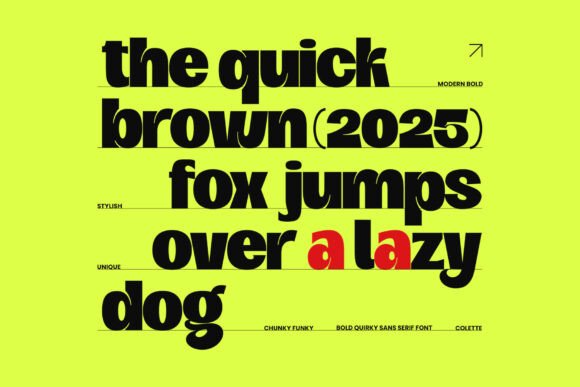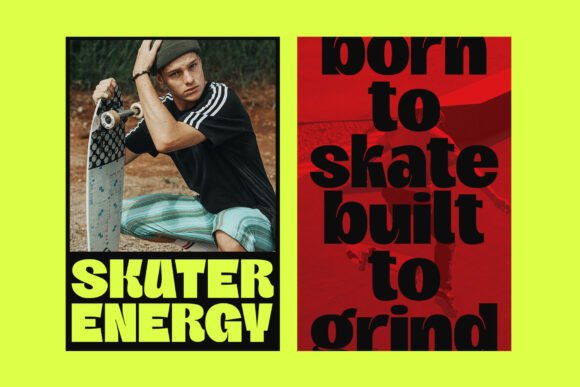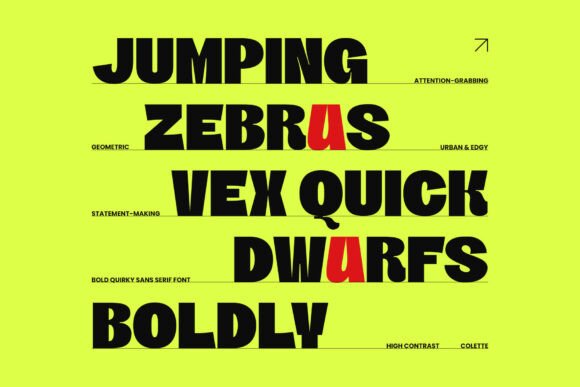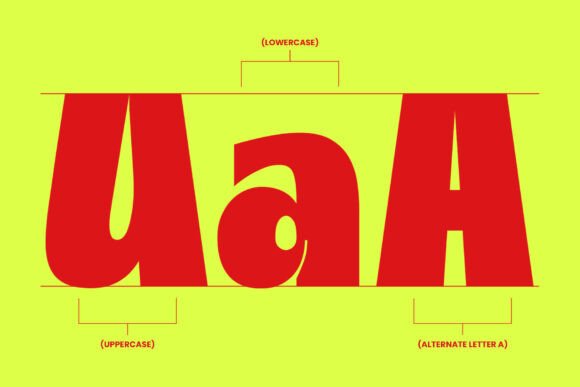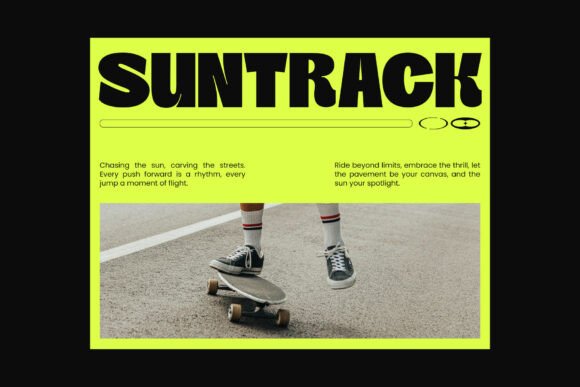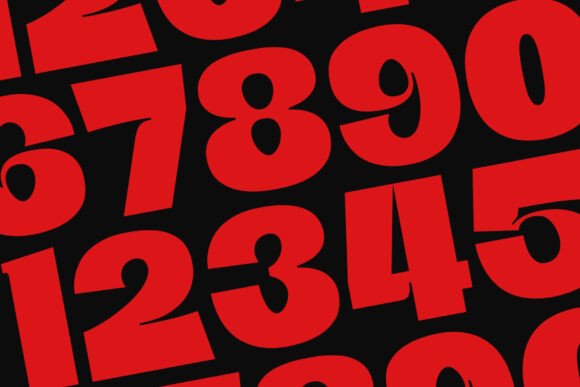
Colette Regular Font: The Bold and Quirky Sans Serif for Modern Designs
In the world of typography, fonts play a crucial role in conveying the tone and personality of a design. For projects that demand attention and want to make a statement, a bold and quirky font is essential. This is where Colette Regular Font comes in – a modern sans serif font that exudes confidence and an unapologetic attitude. In this article, we’ll dive into the features and benefits of Colette, and explore how it can elevate your designs to the next level.
The Unique Characteristics of Colette Regular Font
Colette is a bold and quirky sans serif font that boasts thick curves and unique cuts, setting it apart from more traditional fonts. Its modern edge and edgy vibe make it perfect for projects that require a bold and eye-catching typography. The font’s distinctive features include:
- Thick curves: Colette’s curves are substantial and rounded, giving the font a friendly and approachable feel.
- Unique cuts: The font’s cuts are carefully crafted to create a sense of movement and energy, making it perfect for dynamic designs.
- Modern edge: Colette’s modern edge gives it a sleek and contemporary look that’s perfect for designs that require a fresh and youthful feel.
Ideal Use Cases for Colette Regular Font
Colette is a versatile font that can be used in a variety of design projects, including:
- Posters: Colette’s bold and eye-catching typography makes it perfect for posters that need to grab attention.
- Streetwear: The font’s edgy vibe and modern edge make it a great fit for streetwear designs that require a bold and youthful look.
- Headlines: Colette’s thick curves and unique cuts make it perfect for headlines that need to make a statement.
- Album covers: The font’s quirky and bold personality makes it a great fit for album covers that require a unique and eye-catching typography.
- Branding: Colette can be used for branding projects that require a bold and confident typography, such as logos, packaging, and advertising materials.
Why Choose Colette Regular Font?
So, why choose Colette Regular Font for your design projects? Here are just a few reasons:
- Attention-grabbing: Colette’s bold and quirky typography is designed to grab attention and make a statement.
- Versatile: The font can be used in a variety of design projects, from posters and streetwear to headlines and branding.
- Modern edge: Colette’s modern edge gives it a sleek and contemporary look that’s perfect for designs that require a fresh and youthful feel.
- Easy to read: Despite its bold and quirky personality, Colette is easy to read and can be used for both headings and body text.
Tips for Using Colette Regular Font
To get the most out of Colette Regular Font, here are a few tips:
- Use it boldly: Colette is a bold font, so don’t be afraid to use it boldly and make a statement.
- Experiment with colors: The font’s quirky personality lends itself well to bright and bold colors, so don’t be afraid to experiment.
- Pair it with contrasting fonts: Colette’s bold personality can be paired with contrasting fonts to create a visually appealing design.
In conclusion, Colette Regular Font is a bold and quirky sans serif font that’s perfect for projects that demand attention and want to make a statement. Its thick curves and unique cuts give it a modern edge and an unapologetic attitude, making it perfect for posters, streetwear, headlines, album covers, and branding. With its versatility, attention-grabbing personality, and ease of use, Colette is a great addition to any designer’s font library.